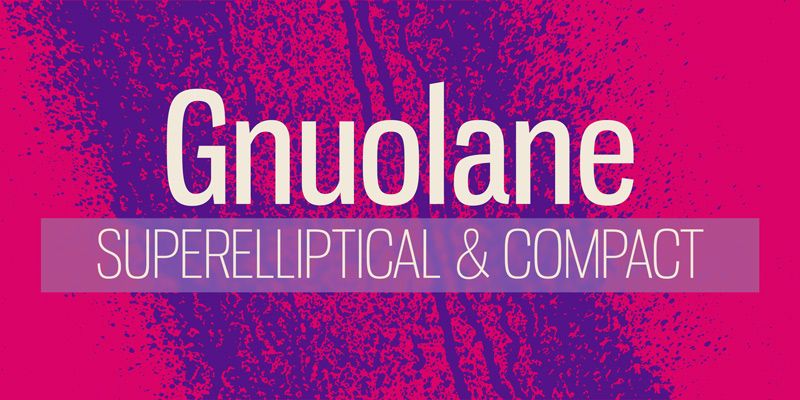
Gnuolane
Gnuolane is a tight display typeface based on superelliptical letterforms, galvanized by nineteenth-century grotesques and no-nonsense 1960's mannerisms.